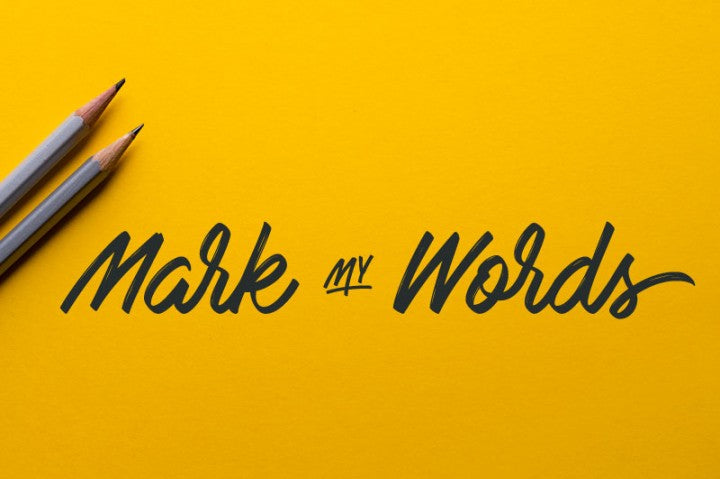
Free Mark My Words Font
Introducing you to the absolutely beautiful free mark my words font. The Hungry JPEG has created this amazing and beautiful free font. This is absolutely fancy font so you can easily make world-class designs.